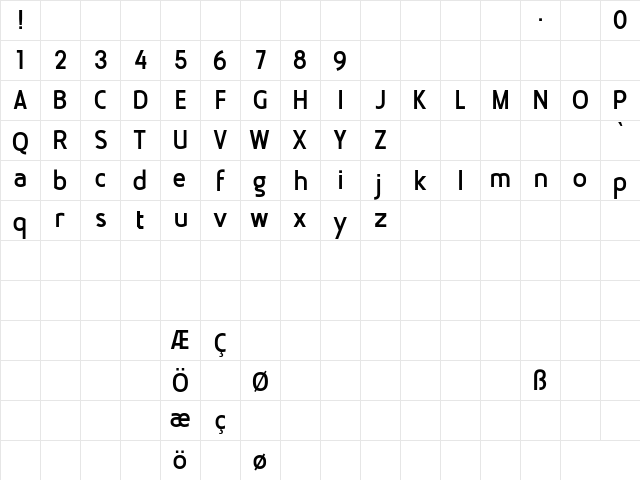
Bloomsburg Regular
| Foundry | Sharkshock |
| Designer | Dennis Ludlow |
Design Context for Bloomsburg Typeface
Bloomsburg is a composed and adaptable typeface that performs quietly and consistently across a wide range of design contexts.